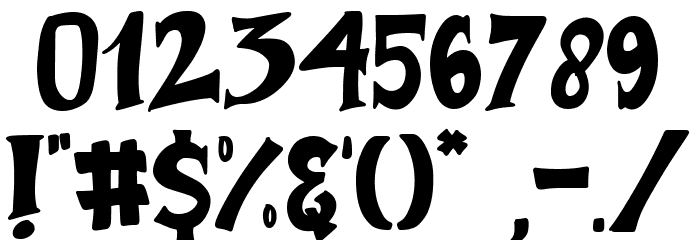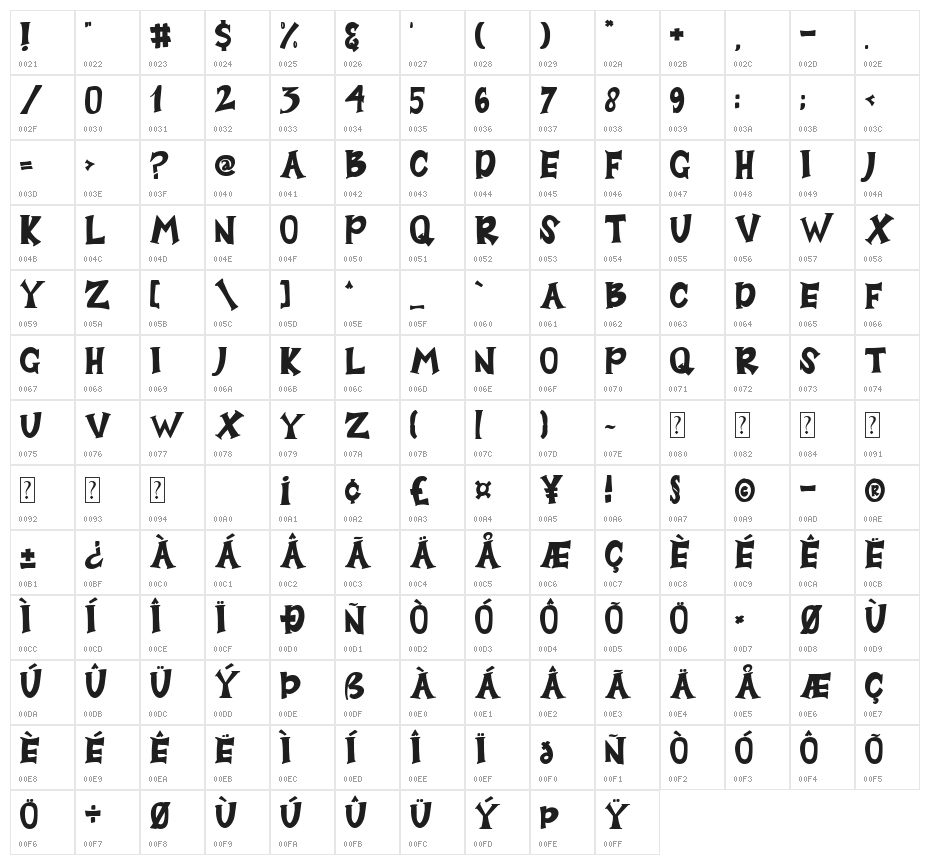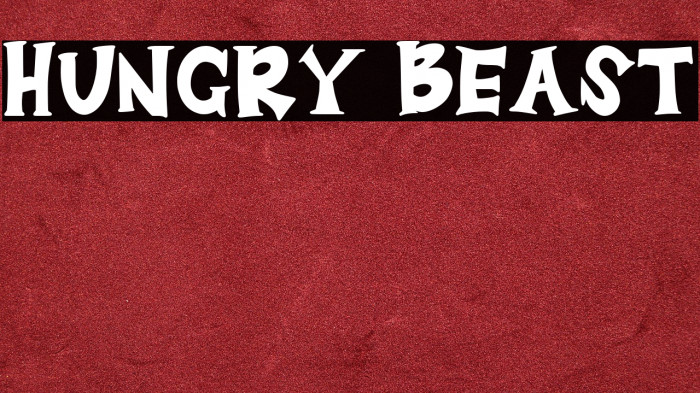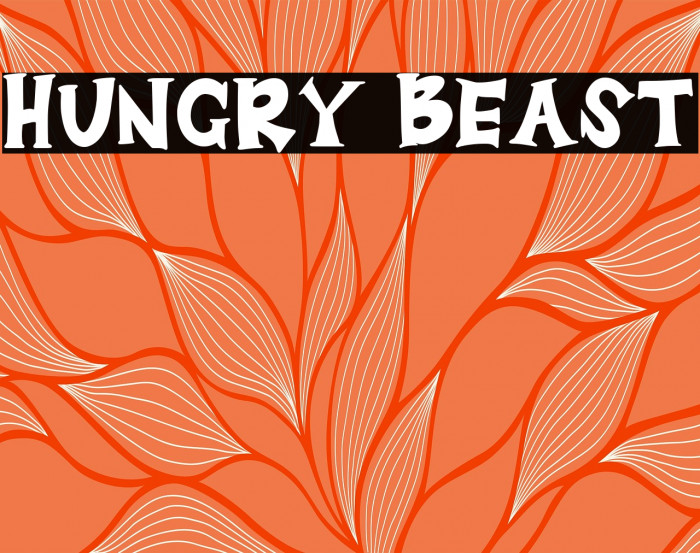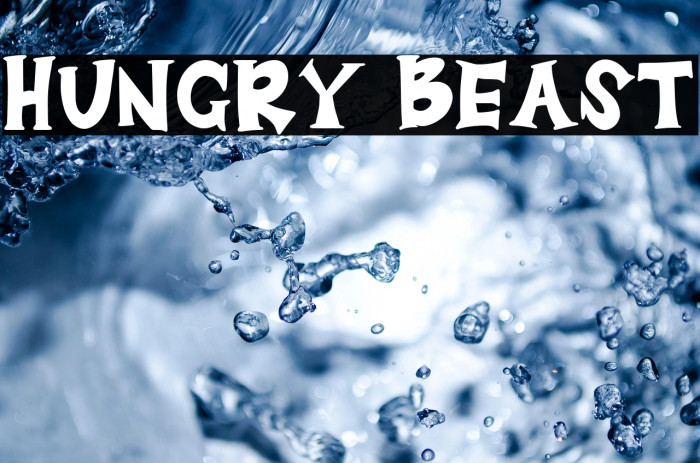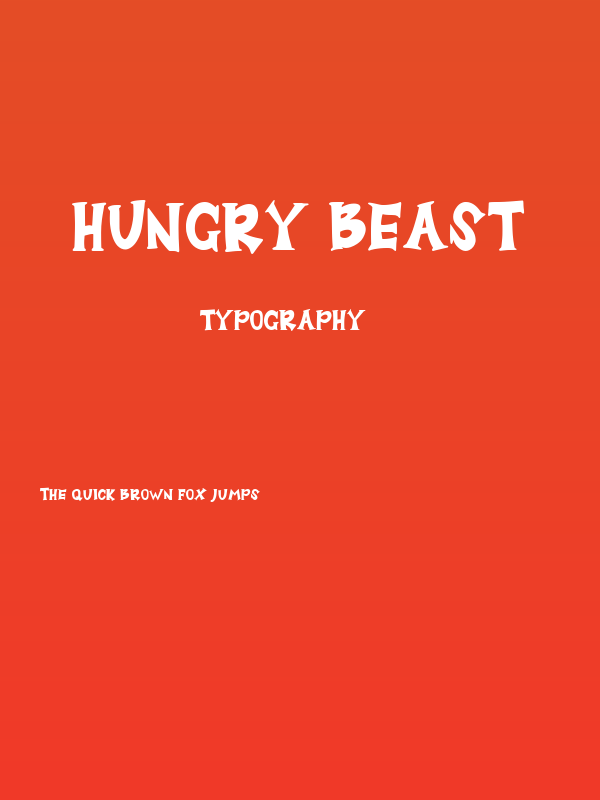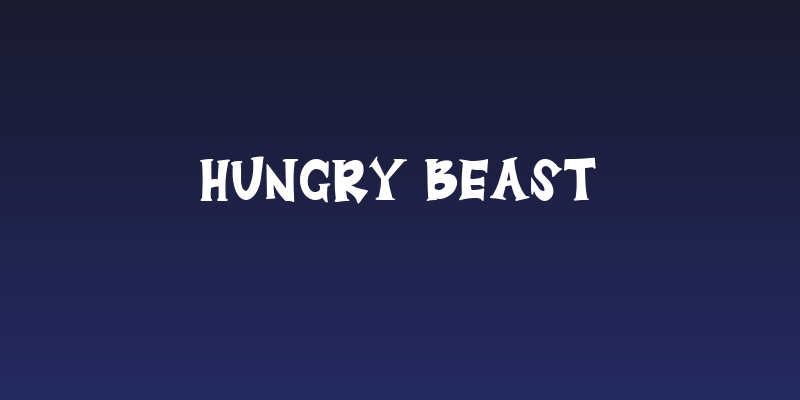
Hungry Beast Font
Hungry Beast Description
This font features a bold and dynamic style with exaggerated serifs and a playful, slightly irregular form. The uppercase letters are robust and commanding, while the lowercase letters maintain a consistent flow, adding a whimsical touch. The numbers are equally bold, ensuring visibility and impact. Special characters are crafted with the same boldness, making them stand out. The overall appearance is energetic and eye-catching, suitable for designs that require a strong visual presence. Its unique style makes it ideal for creative projects that aim to capture attention and convey a sense of fun or excitement.
| Proposed Projects | Ideal for posters, comic books, children's books, and playful branding. |